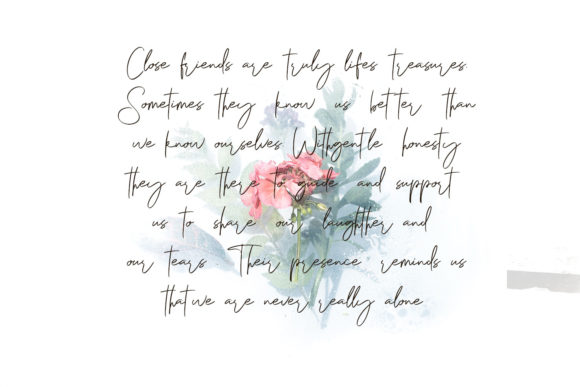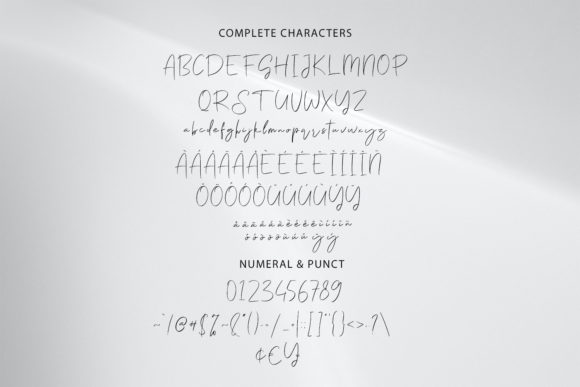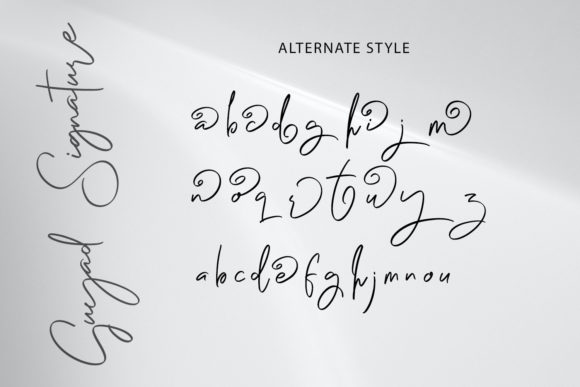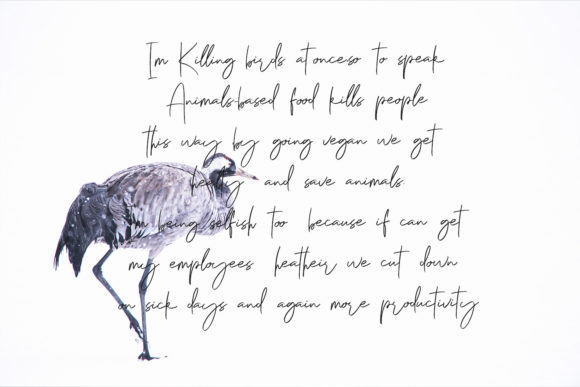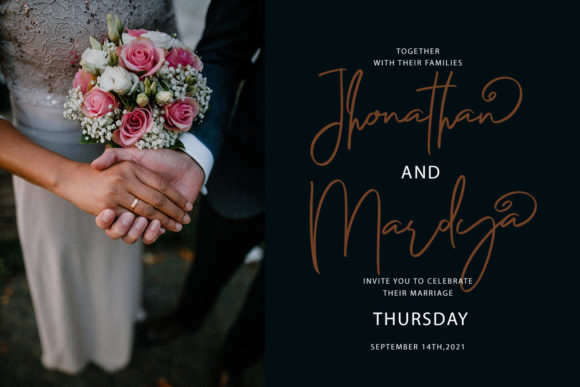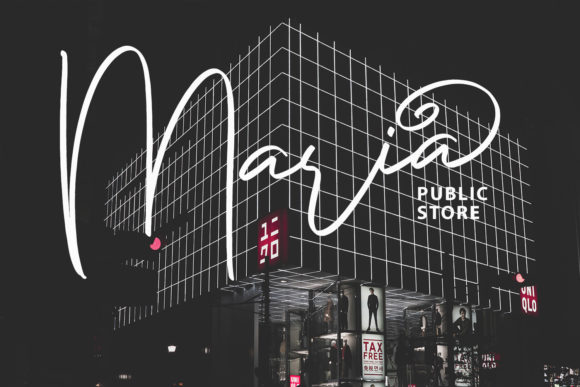
Meet Guyad Font, a casual script font designed to make your life easier. This versatile font is perfect for logo design, social media, movie titles, books titles, wedding invitations, cards, and more. Whether you’re a seasoned designer or a hobbyist, Guyad Font is a valuable addition to your toolkit, providing a beautiful and elegant touch to any project.
Guyat Font Key Features
- Unique Characteristics: The Guyat font features a unique, modern design with a mix of geometric and organic elements, making it suitable for various design applications
- Font Styles: The font family includes several styles, including Regular, Bold, Italic, and Bold Italic, providing flexibility for designers and typographers
- Language Support: The font supports a wide range of languages, including Latin, Cyrillic, and Greek alphabets, making it a versatile choice for global design projects
Review of Guyad Font
- The Guyad Font has a unique, modern feel that could add a fresh touch to various design projects.
- The font is quite legible, even at smaller font sizes, making it a great choice for body text or captions.
- The font family includes a range of weights, from light to bold, which provides flexibility in terms of styling and layout.
- The font may not be suitable for projects that require a more traditional or serif font style.
- The range of languages supported by the font is somewhat limited, which could be a concern for multilingual projects.
- The font’s overall aesthetic may not be to everyone’s taste, and some users may find it too bold or unconventional.
Overall, the Guyad Font is a solid choice for modern design projects, but it may not be the best fit for every type of project. With its unique style and legibility, it’s definitely worth considering for the right application.
Tips for Getting the Most Out of Guyad Font
Use Guyad Font for headings and titles to add a touch of elegance and sophistication.
Pair Guyad Font with other fonts to create a unique and visually appealing typography.
Experiment with different font sizes and colors to add emphasis and hierarchy to your text.
Use Guyad Font for:
Business cards and marketing materials
Editorial and publishing projects
Any project where a elegant and sophisticated font is needed.